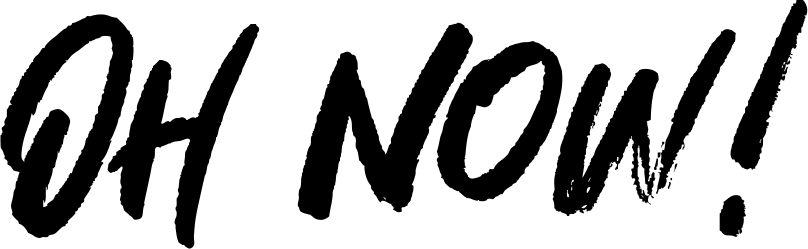
Oh Now! Font
Do you find tropical script fonts interesting? You can create the very unique typography, you dream to achieve easily as Oh Now! offers characters that add a modern and natural feel. Your text will be attractive, the bold characters will make it look hand-drawn.
While putting aside the lowercase alphabet, there are capital alphabet letters, numbers, and punctuations available for this brush font. Oh Now! is suitable for books, movies, comics, CD covers, posters, and wherever you have in mind.